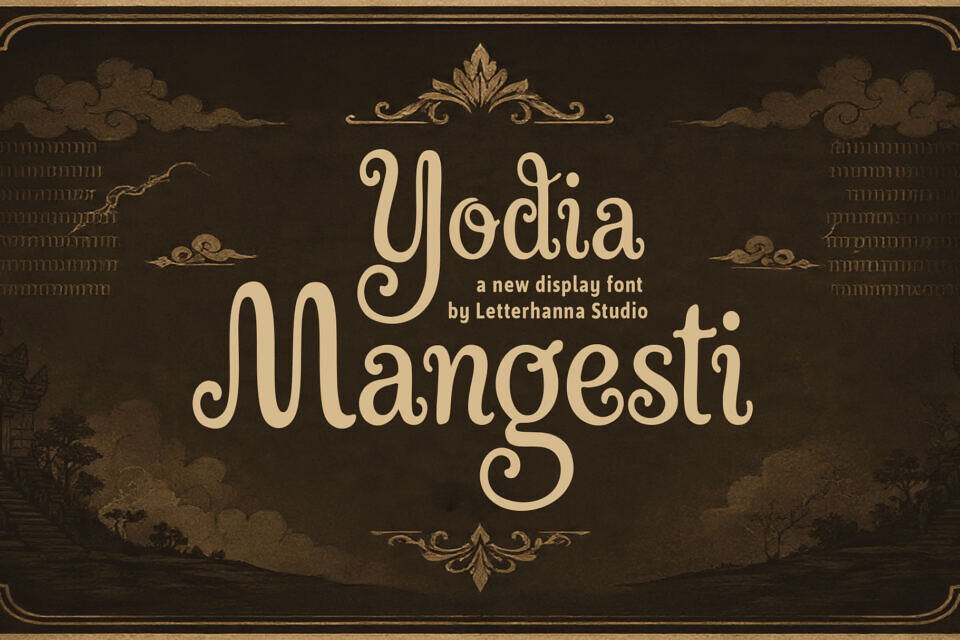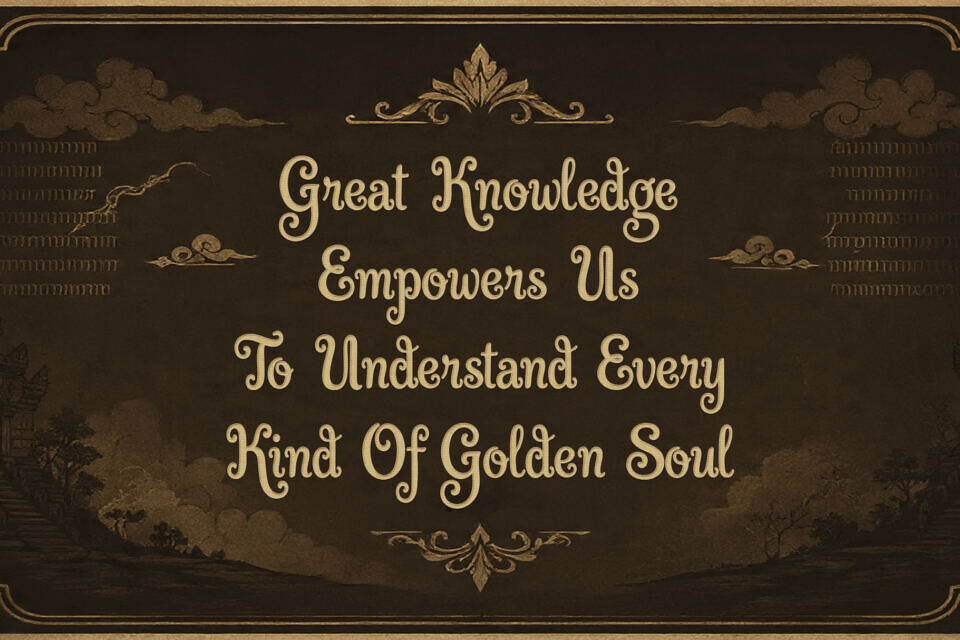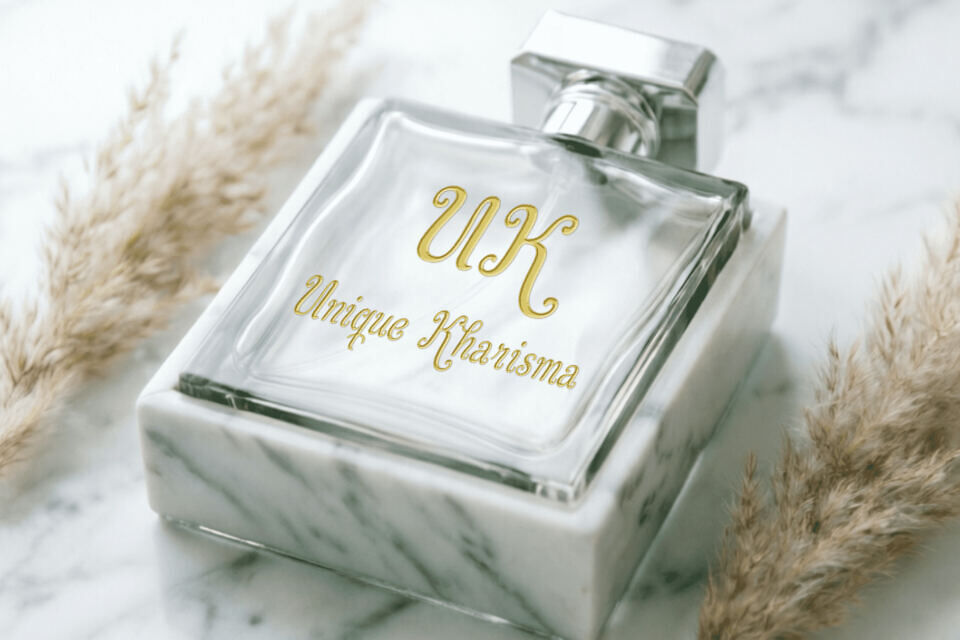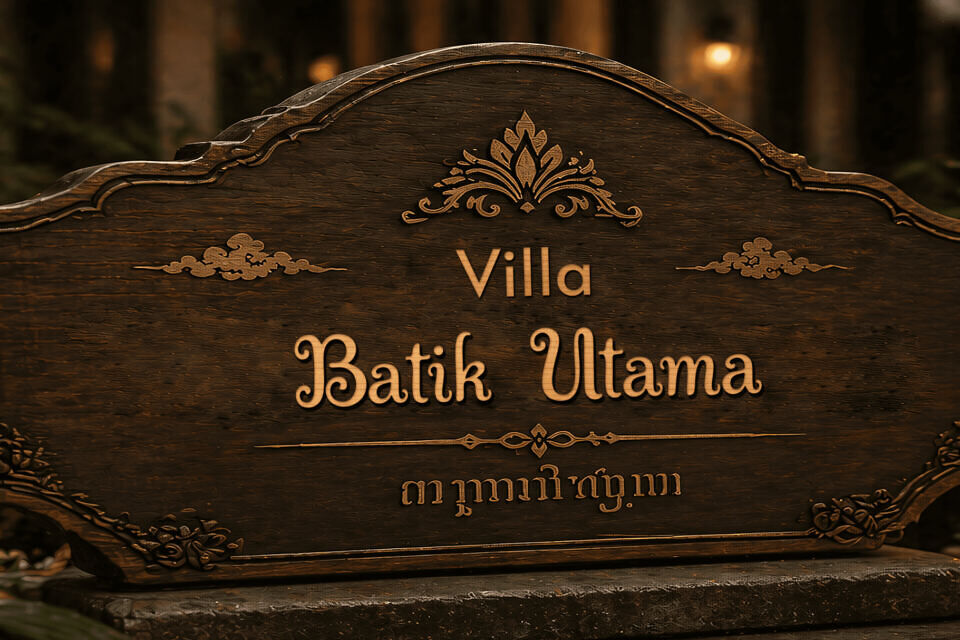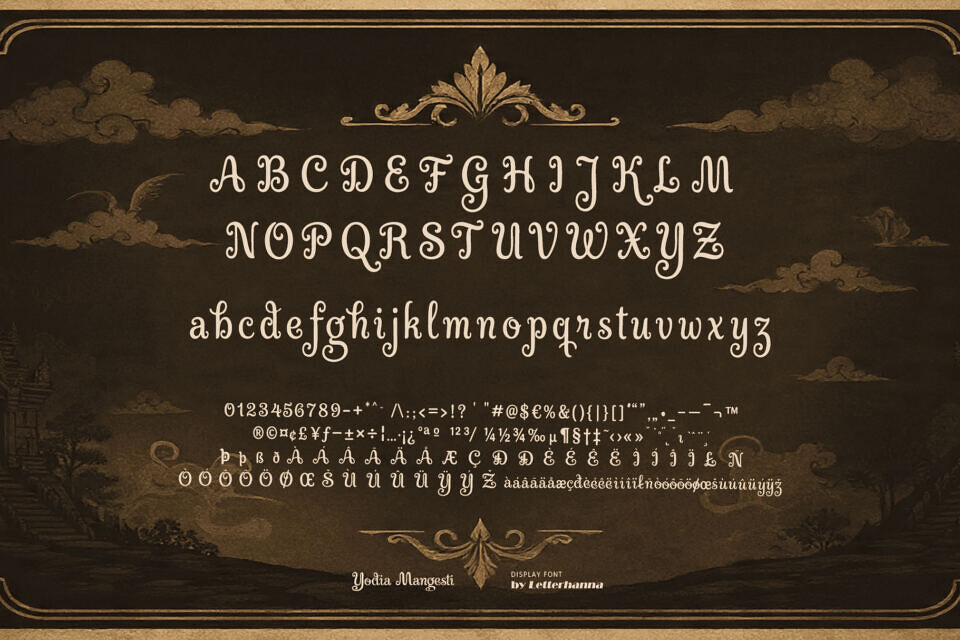
Yodia Mangesti Font
Introducing Yodia Mangesti — a bold, ornate display font inspired by the flowing curves and graceful strokes of Javanese script (Aksara Jawa), one of Southeast Asia’s most revered traditional writing systems.
Each character is crafted with deliberate weight and ornate detail — echoing the chisel-cut strokes of ancient manuscripts while remaining fully at home in contemporary design. The result is a font that feels both deeply rooted and strikingly relevant. Yodia Mangesti is built for designers who want more than just a typeface — they want a story.